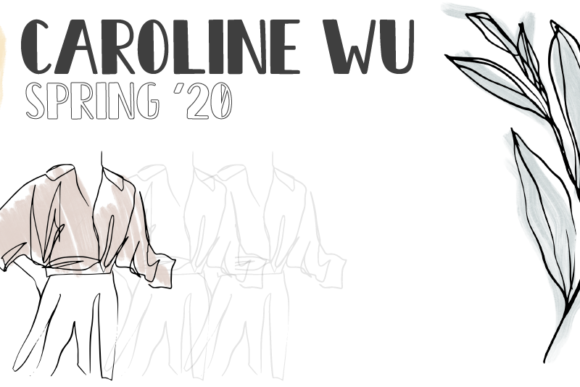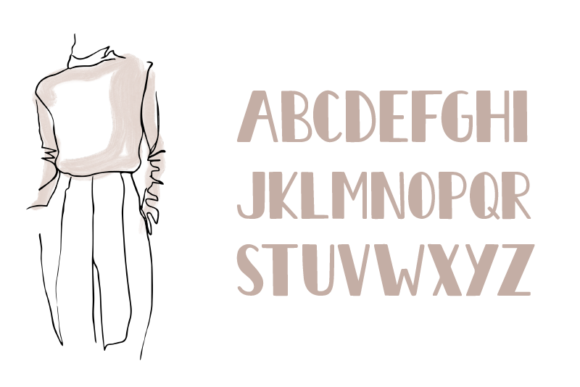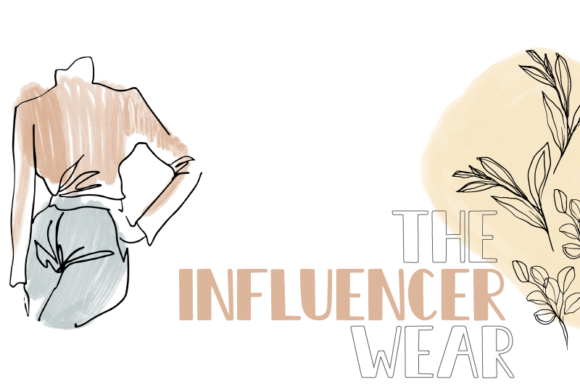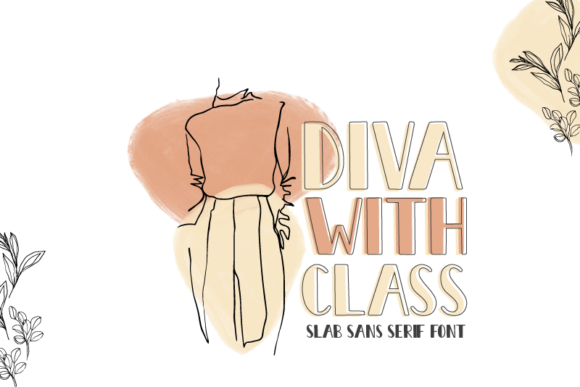
Diva with Class Font: Elevate Your Designs with Modern Elegance
In the world of typography, a font can make or break a design. A well-chosen font can elevate a creation from ordinary to extraordinary, while a poorly chosen one can detract from the overall impact. For designers and crafters looking to add a touch of modern elegance to their work, look no further than the Diva with Class Font. This cool and modern display font is an incredible asset to any font library, capable of elevating any creation with its unique charm.
What is Diva with Class Font?
Diva with Class Font is a stylish and contemporary display font designed to make a statement. Its sleek lines, elegant curves, and sophisticated style make it perfect for a wide range of design applications, from branding and advertising to packaging and digital media. Whether you’re working on a logo, headline, or title, this font is sure to turn heads.
Key Features of Diva with Class Font
- Modern and Elegant Design: Diva with Class Font boasts a modern and elegant design that is sure to add a touch of sophistication to any creation.
- Versatile: This font is versatile and can be used for a wide range of design applications, from digital media to print materials.
- High-Quality: The font is designed with high-quality and precision, ensuring that it looks great in any size or resolution.
- Easy to Read: Despite its elegant design, Diva with Class Font is easy to read, making it perfect for headlines, titles, and other display text.
Why Choose Diva with Class Font?
There are many reasons why designers and crafters should choose Diva with Class Font for their next project. Here are just a few:
- Stand Out from the Crowd: With its unique and modern design, Diva with Class Font is sure to help your creation stand out from the crowd.
- Elevate Your Brand: If you’re looking to elevate your brand or create a professional image, this font is an excellent choice.
- Easy to Pair: Diva with Class Font is easy to pair with other fonts, making it versatile and convenient to use.
- Great for Digital Media: This font is optimized for digital media, making it perfect for websites, social media, and other online applications.
How to Use Diva with Class Font
Using Diva with Class Font is easy. Here are a few tips to get you started:
- Headlines and Titles: Use Diva with Class Font for headlines and titles to add a touch of elegance and sophistication.
- Branding and Advertising: This font is perfect for branding and advertising applications, such as logos, billboards, and magazine ads.
- Digital Media: Use Diva with Class Font for digital media, such as websites, social media, and email marketing campaigns.
- Pair with Other Fonts: Experiment with pairing Diva with Class Font with other fonts to create a unique and visually appealing design.
In conclusion, Diva with Class Font is a cool and modern display font that is sure to elevate any creation. Its elegant design, versatility, and high-quality make it an excellent choice for designers and crafters looking to add a touch of sophistication to their work. Whether you’re working on a branding project, digital media, or print materials, this font is sure to turn heads. So why wait? Add Diva with Class Font to your font library today and take your designs to the next level!